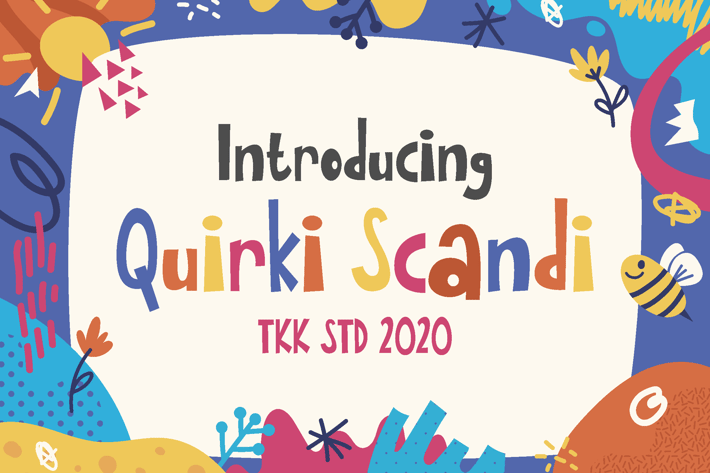
Quirki Scandi - Girly Kids font
Quirky Scandi – Fun, Whimsical Letters with Nordic Vibes for Happy Branding Moments
Quirki Scandi is a playful kids font inspired by Nordic design simplicity and Scandinavian cheer. Its handcrafted, bouncy style gives each letter a fun, imperfect charm that feels both warm and whimsical. With its creative curves and bold yet friendly personality, Quirki Scandi instantly adds joy to children’s projects—from invitations to playroom decor.
Whether you're designing for a school event, toy packaging, or birthday poster, this font makes every word feel like a celebration. It’s more than just cute—it’s creatively quirky in all the right ways.
Quirki Scandi is a perfect fit for:
Kids brands & educational products
Daycare centers, toy stores & parenting blogs
Birthday invitation designers
Creators of posters, worksheets, & playful social media content
Interior designers for children’s rooms
Teachers, YouTubers, and kid-focused content creators
Font Features :
All-caps and lowercase styles with natural bounce
Simple yet joyful strokes for strong legibility
Soft, rounded corners and childlike rhythm
Alternating letter heights for extra charm
Ideal for large displays like posters and signage
Works great with bright palettes and doodle-style illustrations